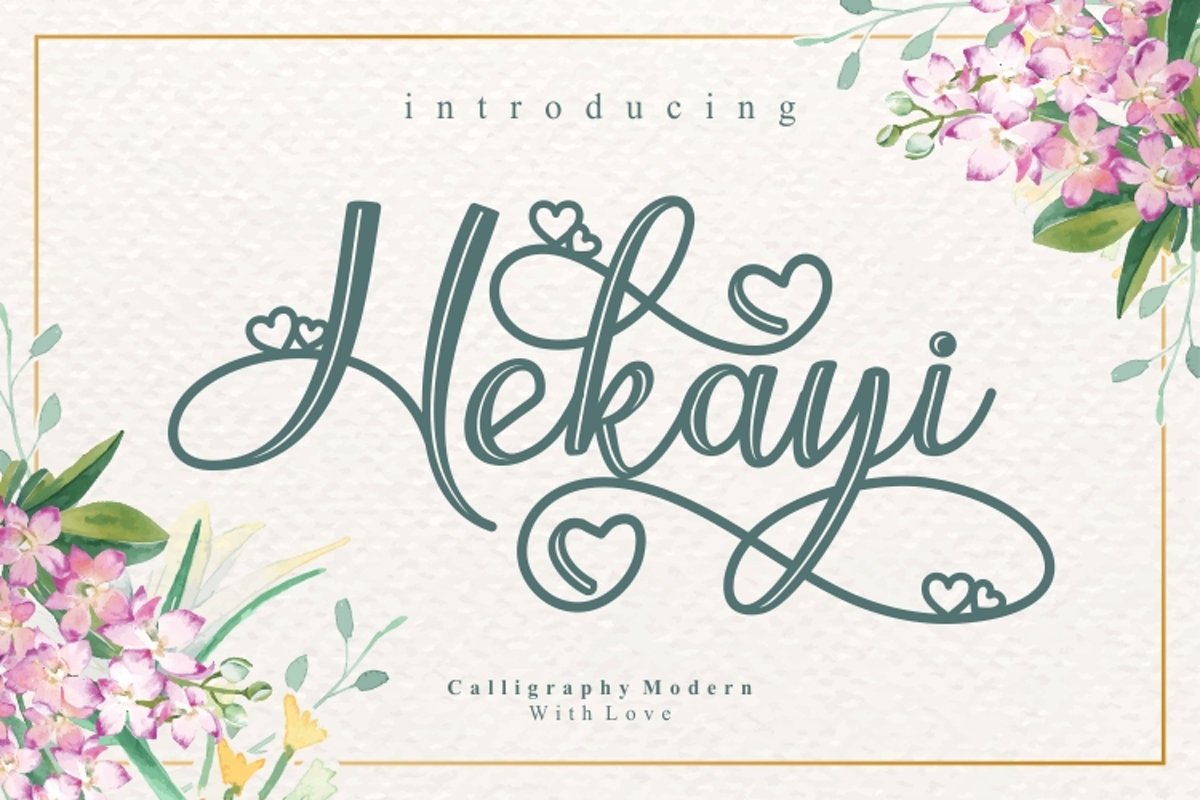
Hekayi
Hekayi  a Modern Calligraphy font. This font
will looks awesome and amazing in many way to your latest project.
Hekayi  is perfect for many different
project such as logos & branding, invitation, stationery, wedding
designs, social media posts, advertisements, product packaging, product
designs, label, photography, watermark, special events or anything.
- Character set A-Z
- Character set a-z
- Support multilanguage glyphs